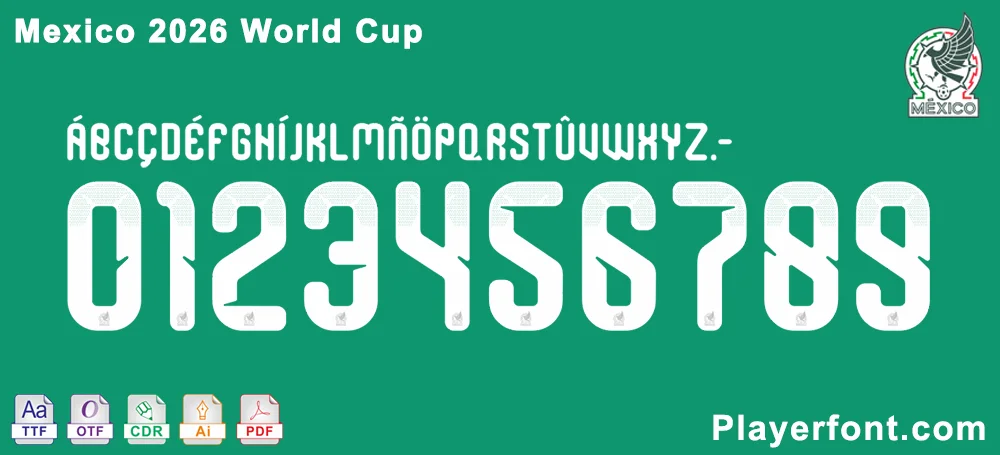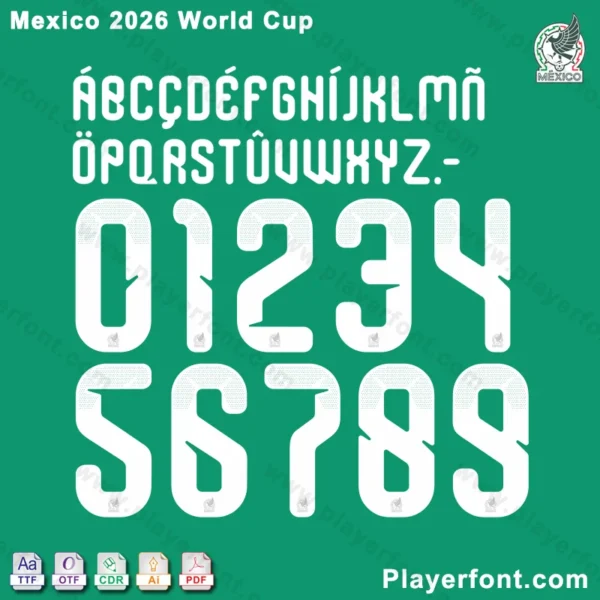
Official Mexico 2026 World Cup font: full letter & number set.
Elevate your 2026 World Cup creations with the official Mexico 2026 World Cup font—matching the exact typography of Mexico’s 2026 World Cup kit lettering.